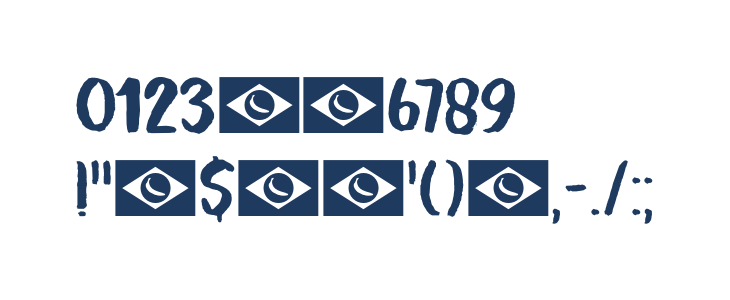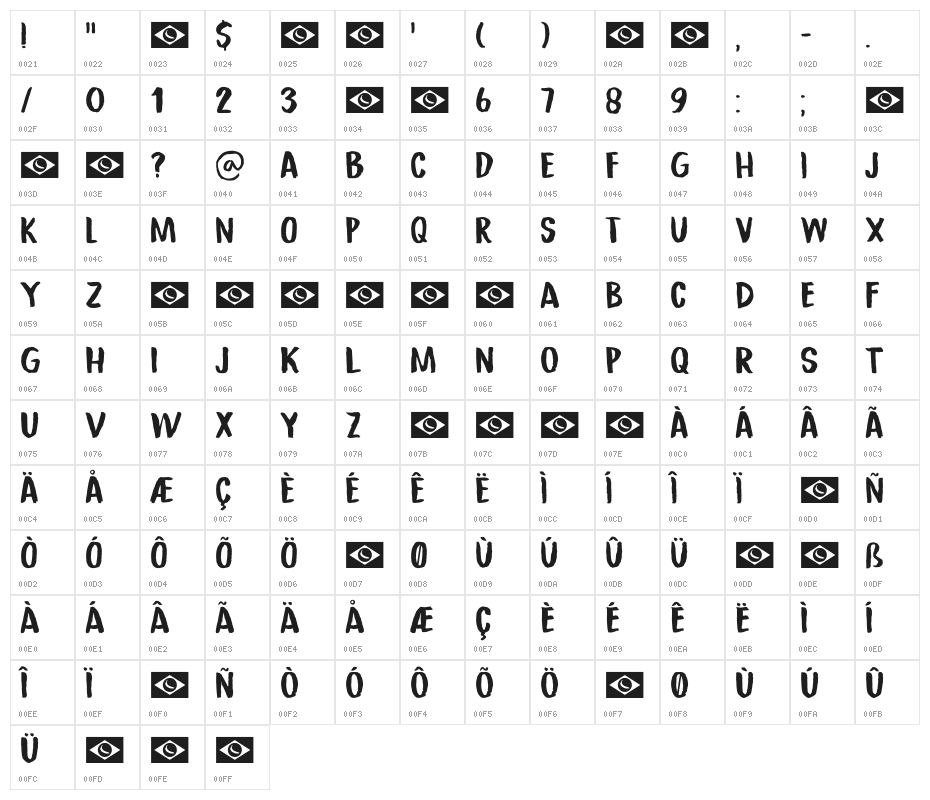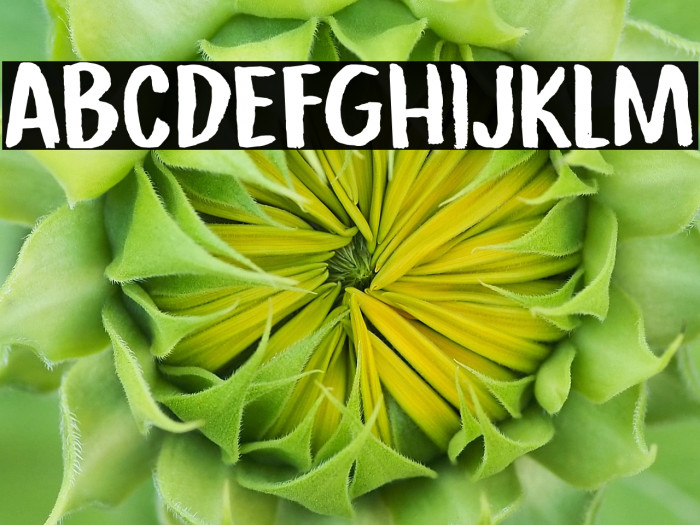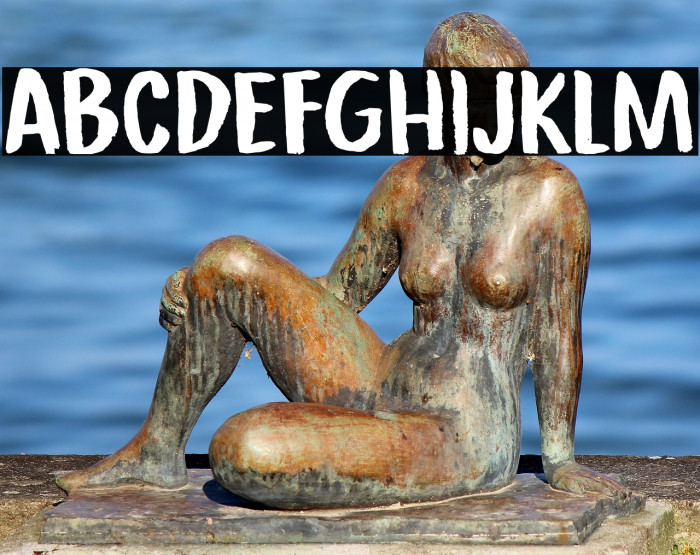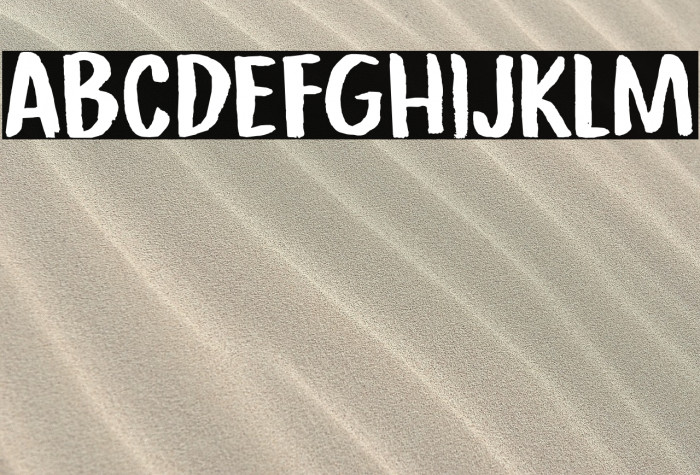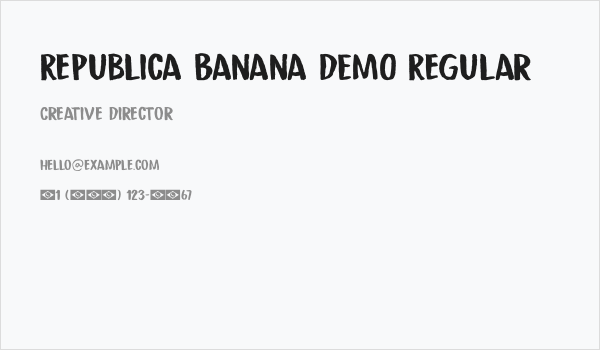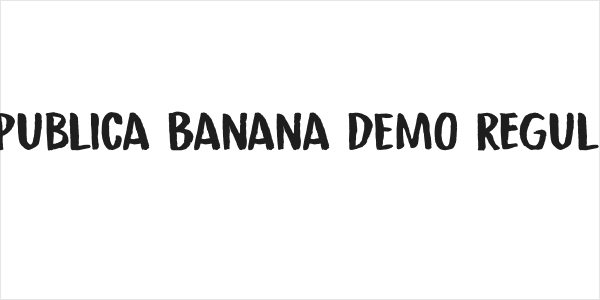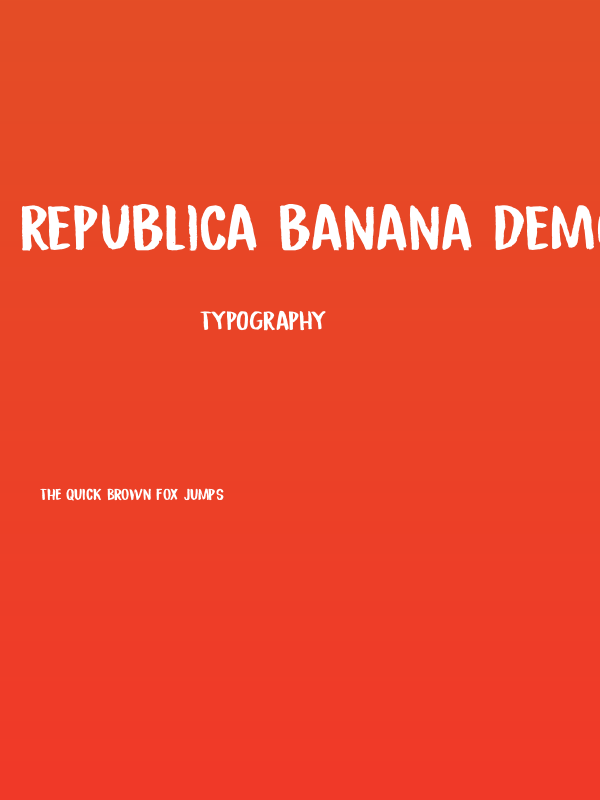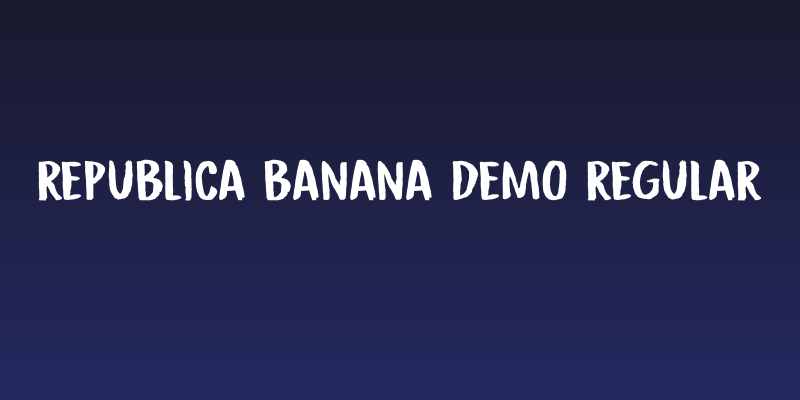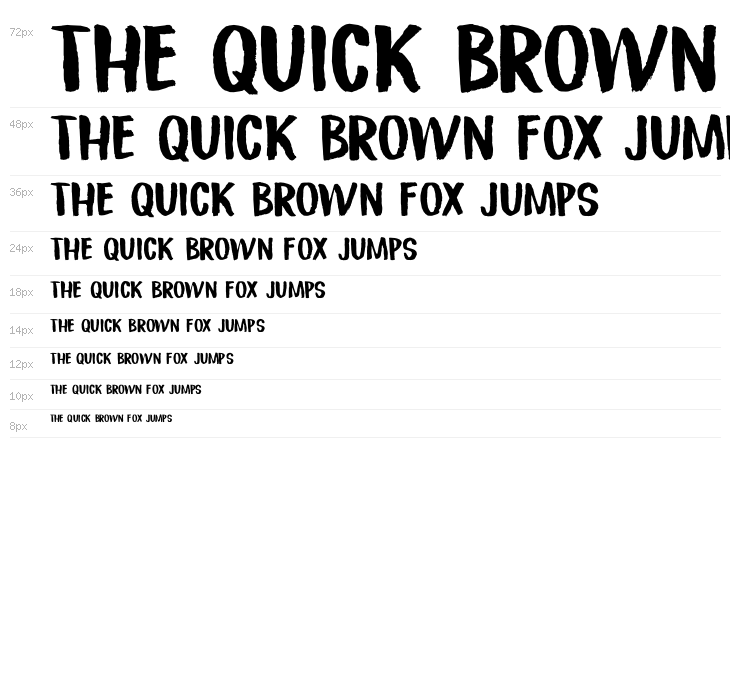
Republica Banana DEMO Regular Font
Republica Banana DEMO Regular Description
This font features a bold, hand-painted style with a playful and artistic flair. The characters are slightly irregular, giving them a dynamic and energetic appearance. The strokes are thick and consistent, creating a strong visual impact. The uppercase and lowercase letters maintain a cohesive look, with rounded edges and a casual feel. The numbers and special characters follow the same design principles, ensuring uniformity across the font. This style is reminiscent of street art or graffiti, making it ideal for projects that require a bold and expressive typeface.